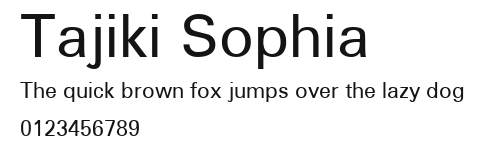
• Font Name: Tajiki Sophia
• Full Font Name: Tajiki Sophia
• Designer: Travel Tajikistan
• Manufacturer: SIL Encore Fonts
• Description: This font is part of a family of fonts designed for displaying Tajiki text on web pages. Four typefaces are available: Charis (Serif) Doulos (Serif) Manuscript (Monospaced) Sophia (Sans Serif) Internally, the font has both KOI8-R (with Tajiki extensions) and Unicode mappings. For more information, see: http://www.traveltajikistan.com/fonts
Tajiki Sophia.ttf is a modern, elegant sans-serif font designed for ultimate readability and visual harmony. Perfect for branding, headlines, web design, and print materials.